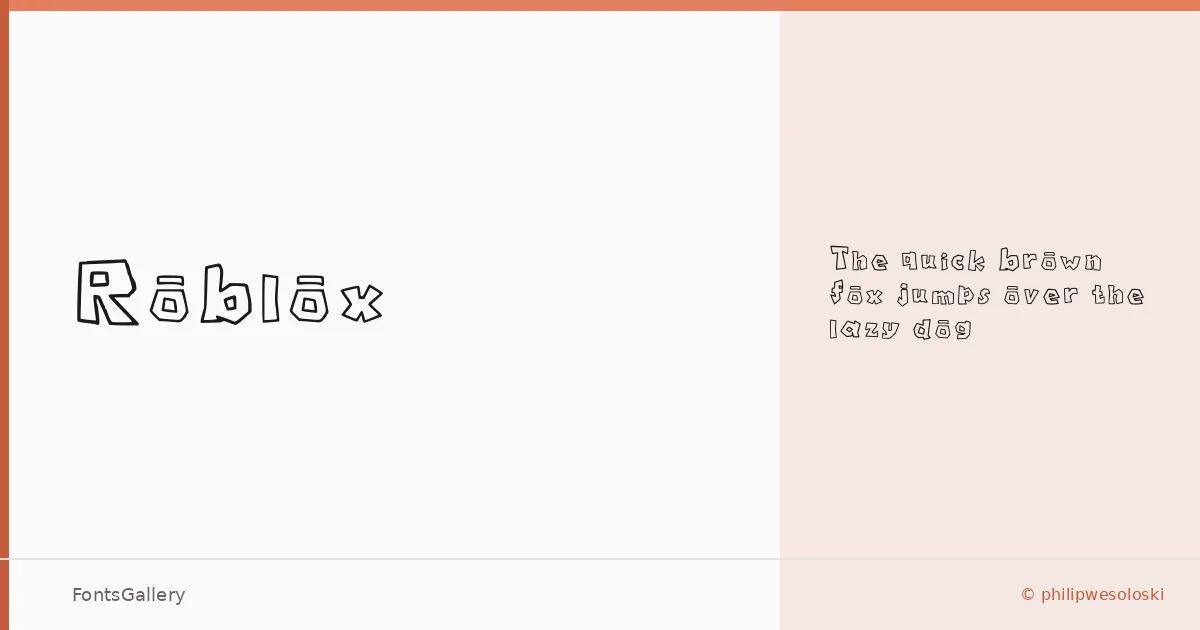
About Roblox Font
There is an unmistakable boldness to these letterforms — chunky, confident, and built for attention. Drawn by Philip Wesoloski using Calligraphr.com, this display face captures the playful, whimsical energy that defines youth-facing digital culture. Even at a glance, the single Regular cut carries enough personality to do real work in the right context.
Sitting firmly in the display category, the design leans into a bold, playful attitude — the kind of weight and character that reads instantly at large sizes and feels at home in gaming, entertainment, and youth branding. The single Regular style is delivered as a TTF, keeping it lightweight and straightforward to deploy. Its whimsical quality comes through in the overall rhythm of the glyphs rather than decorative flourishes, which gives it more range than it might first suggest.
This face earns its place in branding, logo lockups, posters, and social media graphics where a strong, instantly recognizable voice matters — it also translates well to t-shirt design, where display type needs to hold up at both large and small production scales. Pair it with the neutrality of Helvetica or Asap to let it lead, or contrast it against the editorial warmth of Canela and Etna for more layered compositions; AQUA offers a similarly energetic register if you want complementary display-on-display tension.